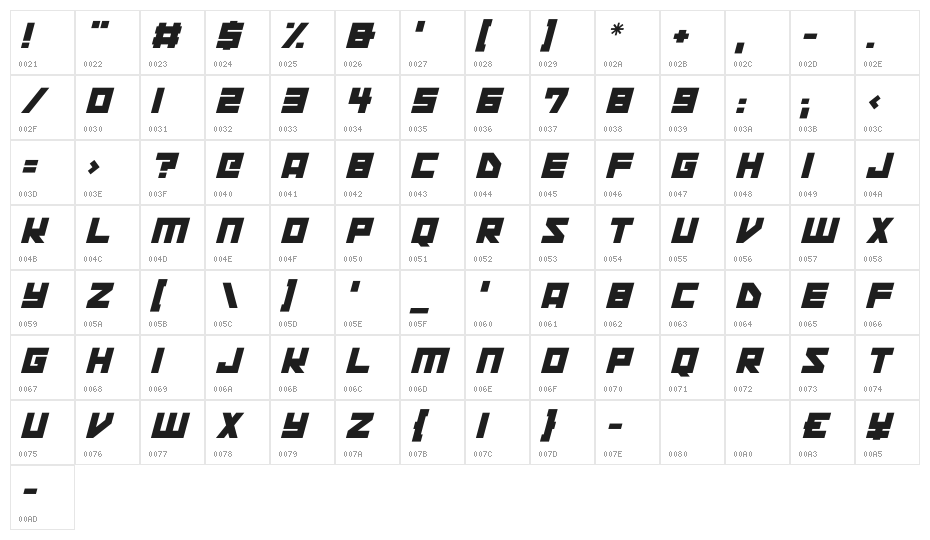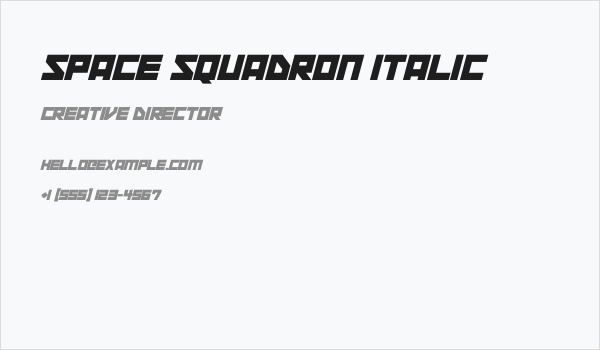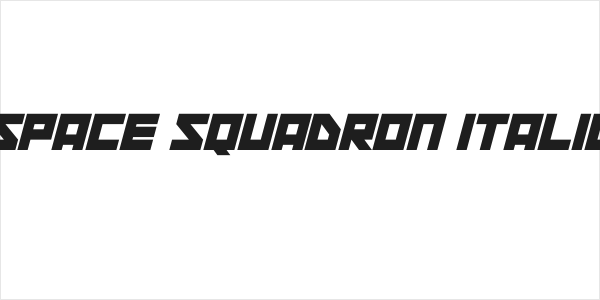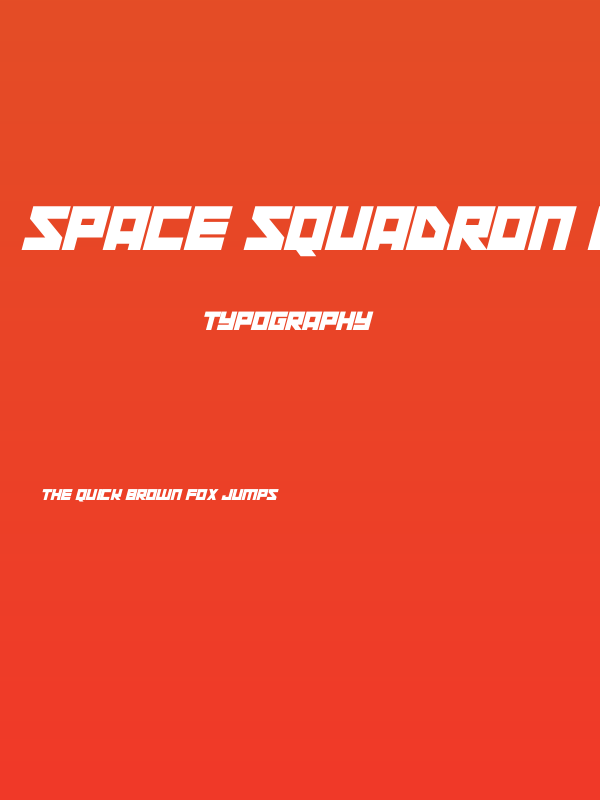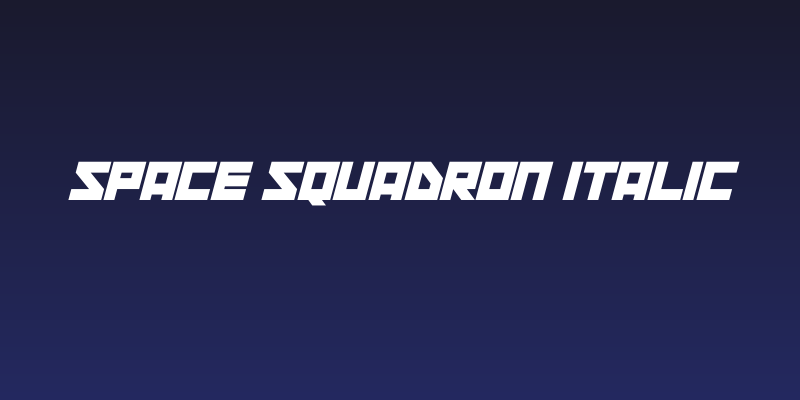
Space Squadron Italic Font
Space Squadron Italic Description
This font features a bold, futuristic design with sharp angles and a distinct italic slant, giving it a dynamic and forward-moving appearance. The characters are uniformly bold, with a consistent stroke width that emphasizes strength and modernity. The geometric shapes and clean lines create a sense of precision and technological advancement. The uppercase and lowercase letters maintain a cohesive style, while the numerals and special characters complement the overall aesthetic. This font is ideal for projects that require a modern, high-tech look, such as sci-fi themes, video game titles, or tech branding.
| Proposed Projects | Ideal for sci-fi themes, video game titles, tech branding, and futuristic designs. |